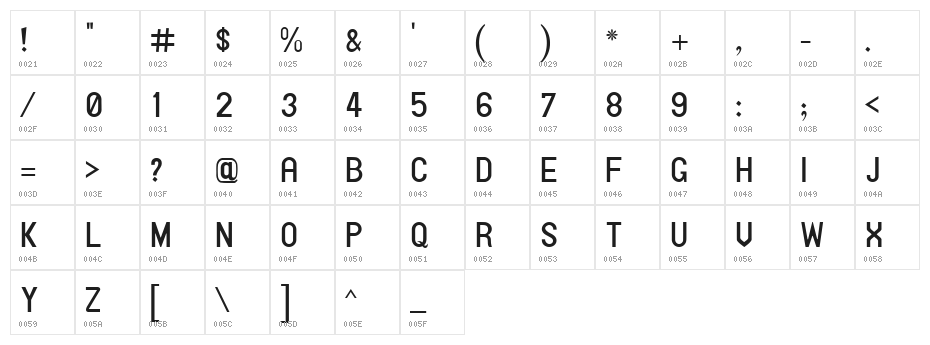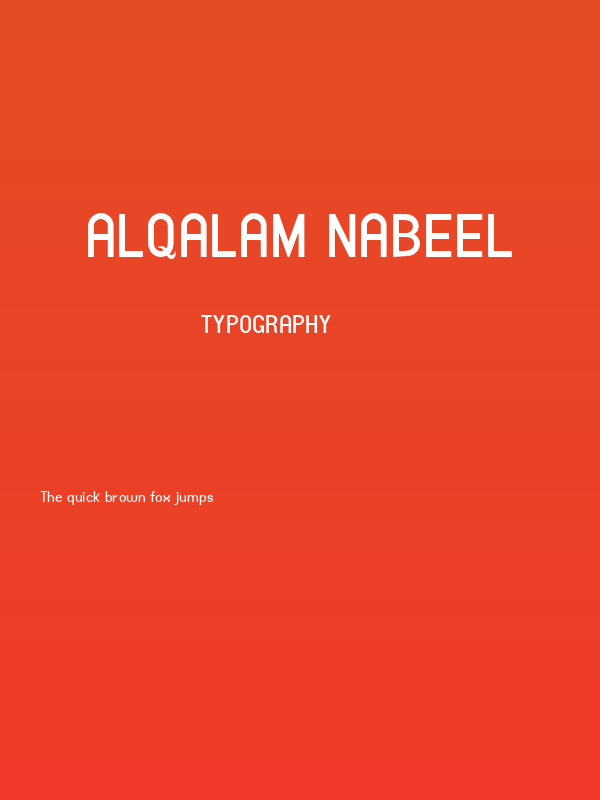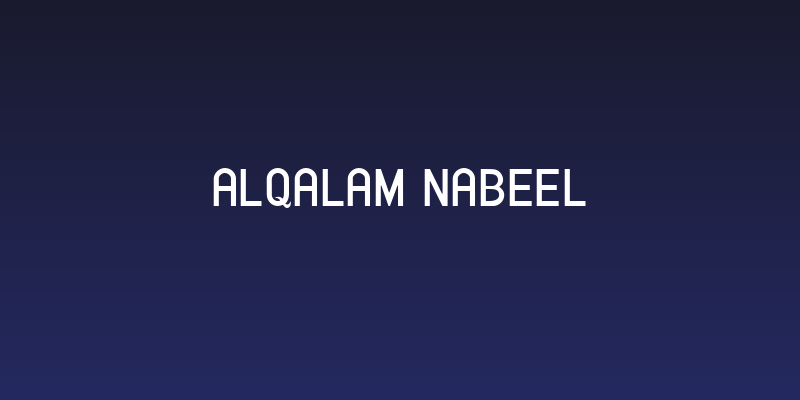
AlQalam Nabeel Font
AlQalam Nabeel Description
This font features a clean and modern sans-serif design with a geometric structure. The characters are well-balanced, offering a uniform appearance that is both professional and approachable. The uppercase letters are bold and assertive, while the lowercase letters maintain a friendly and accessible look. The numerals are clear and easy to read, making them suitable for various applications. Special characters are included, providing versatility for different contexts. The overall design is minimalistic yet impactful, making it ideal for contemporary projects.
| Proposed Projects | Ideal for branding, web design, advertising, and editorial projects where a modern and clean look is desired. |